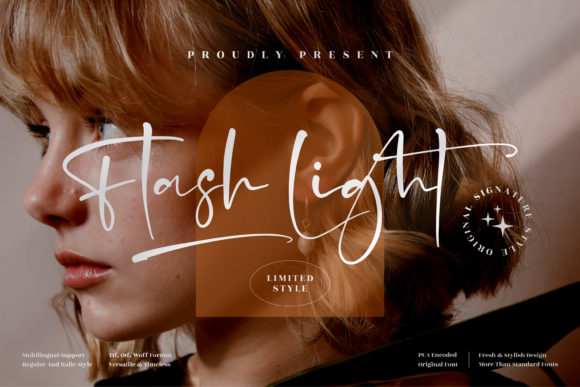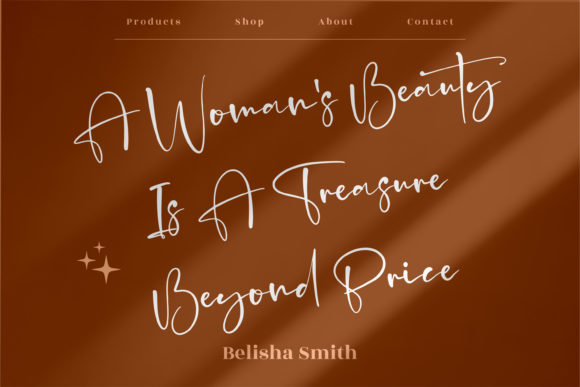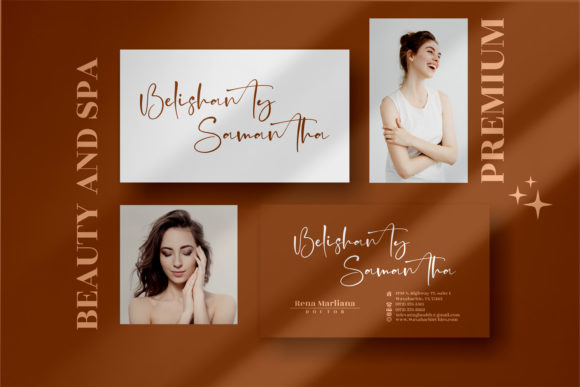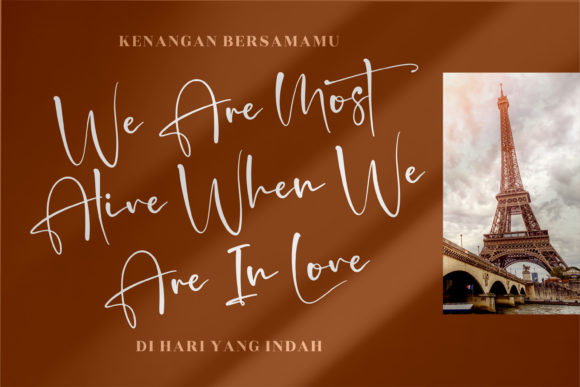
About Flash Light Font
Flash Light is a chic, thin lettered script font, that emanates sophistication and elegance. Its stylish alternates and ligatures make this font the perfect match for any project. Flash Light is PUA encoded which means you can access all of the glyphs and swashes with ease!Â